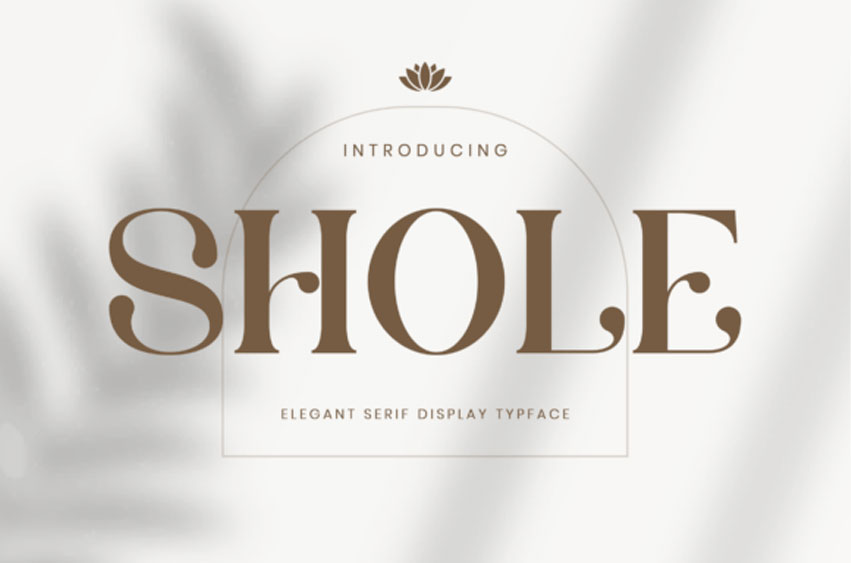
Shole Font is a stylish ligature typeface inspired by the elegance of minimalist logos, designed to bring a refined, contemporary touch to any creative project. Its clean lines and modern character make it perfect for designing templates, brochures, videos, advertisements, branding materials, logos, and so much more.